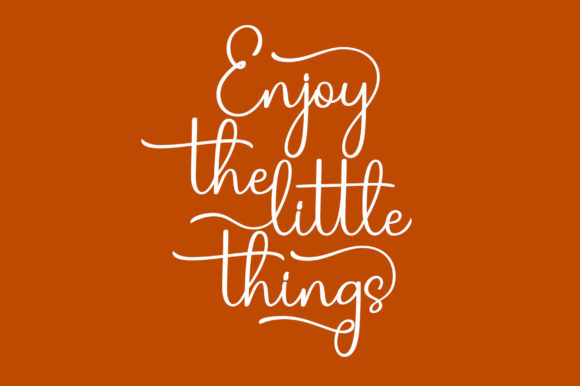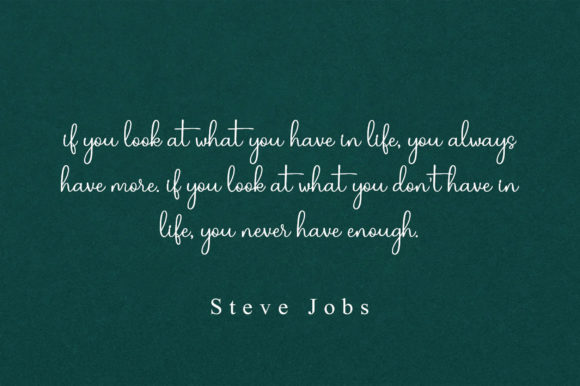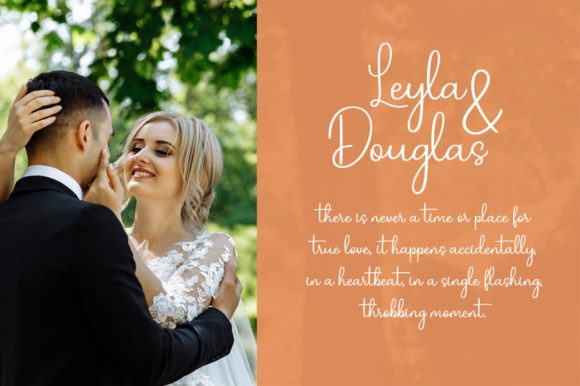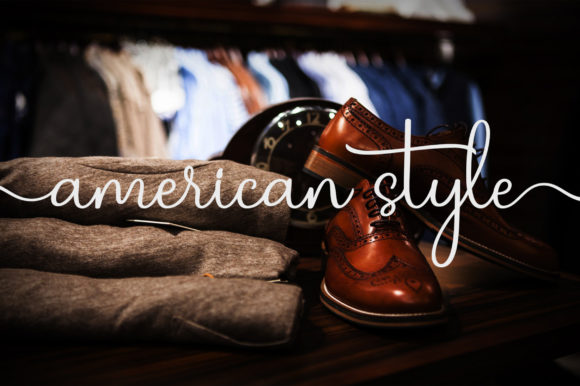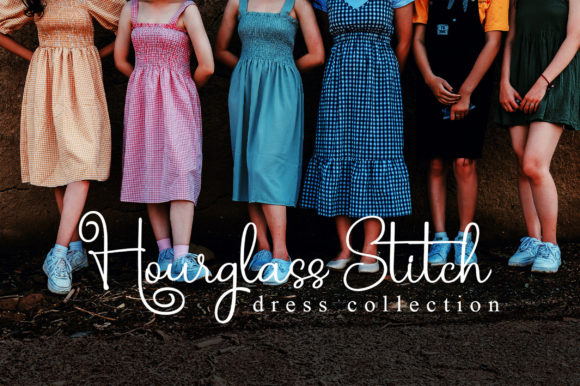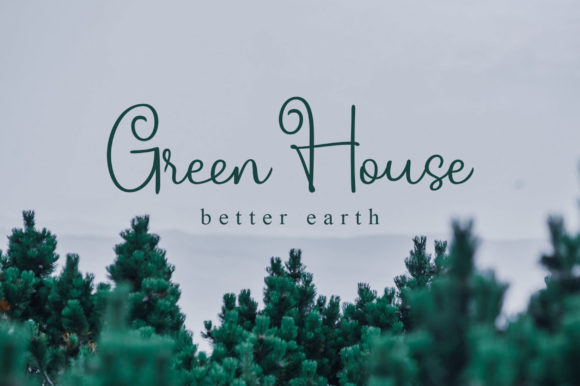
Introducing Cardamom Script Font: Elevate Your Designs with Elegance and Sophistication
In the world of typography, a well-crafted font can make all the difference in transforming a design from ordinary to extraordinary. For designers and crafters seeking a touch of elegance and sophistication, Cardamom Script Font is an exceptional choice. This lovely and timeless handwritten font is perfect for creating eye-catching logos, branding, and quotes that leave a lasting impression.
The Unique Charm of Cardamom Script Font
What sets Cardamom Script Font apart is its distinctive and beautiful touch. Every letter is carefully crafted to exude a sense of refinement and luxury, making it an ideal choice for designers who want to add a touch of sophistication to their work. Whether you’re creating a logo, branding materials, or inspirational quotes, Cardamom Script Font brings a level of elegance and poise that’s hard to match.
Endless Design Possibilities with Cardamom Script Font
One of the most exciting aspects of Cardamom Script Font is its versatility. Its beautiful, flowing script lends itself to a wide range of design applications, from:
- Logos and Branding: Create a lasting impression with a custom logo that exudes elegance and sophistication.
- Quotes and Inspirational Messages: Add a touch of refinement to your quotes and messages, making them perfect for social media, posters, or greeting cards.
- Stationery and Invitations: Elevate your stationery and invitations with a font that’s both beautiful and timeless.
- Packaging and Product Design: Stand out in a crowded market with packaging and product designs that feature the unique charm of Cardamom Script Font.
Why Choose Cardamom Script Font?
With so many fonts available, why choose Cardamom Script Font? Here are just a few reasons:
- Unique and Beautiful: Every letter has a distinctive and beautiful touch that will make your designs stand out.
- Timeless Elegance: Cardamom Script Font is a classic choice that will never go out of style.
- Versatile: Use it for a wide range of design applications, from logos and branding to quotes and stationery.
- Easy to Read: Despite its elegant and flowing script, Cardamom Script Font is easy to read, making it perfect for body text and captions.
Tips for Getting the Most Out of Cardamom Script Font
To truly make the most of Cardamom Script Font, here are a few tips:
- Experiment with Pairings: Try pairing Cardamom Script Font with other fonts to create a unique and visually appealing combination.
- Play with Size and Color: Don’t be afraid to experiment with different sizes and colors to add depth and interest to your designs.
- Use it Sparingly: While Cardamom Script Font is beautiful, it can be overwhelming if overused. Use it sparingly to create a lasting impression.
In conclusion, Cardamom Script Font is a truly exceptional choice for designers and crafters seeking to add a touch of elegance and sophistication to their work. With its unique and beautiful touch, timeless elegance, and versatility, it’s the perfect font for creating eye-catching logos, branding, and quotes. Whether you’re a seasoned designer or just starting out, Cardamom Script Font is sure to become a favorite in your design arsenal.